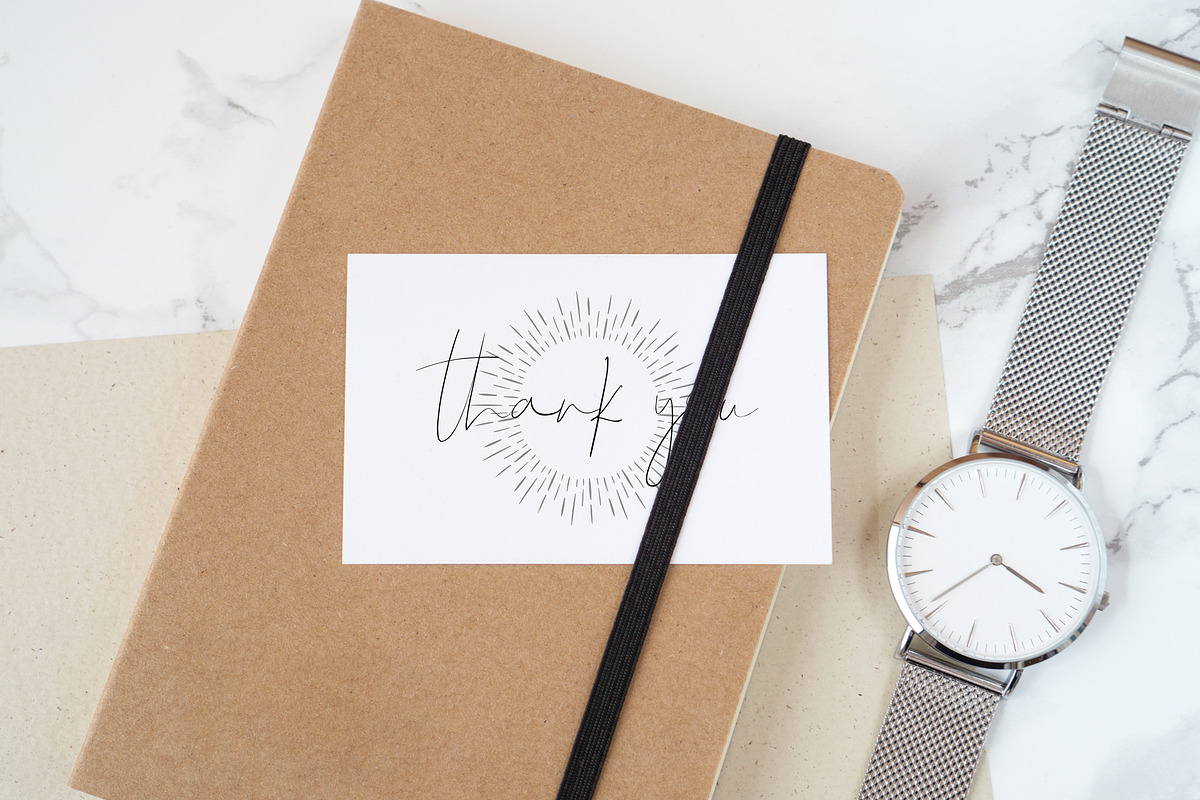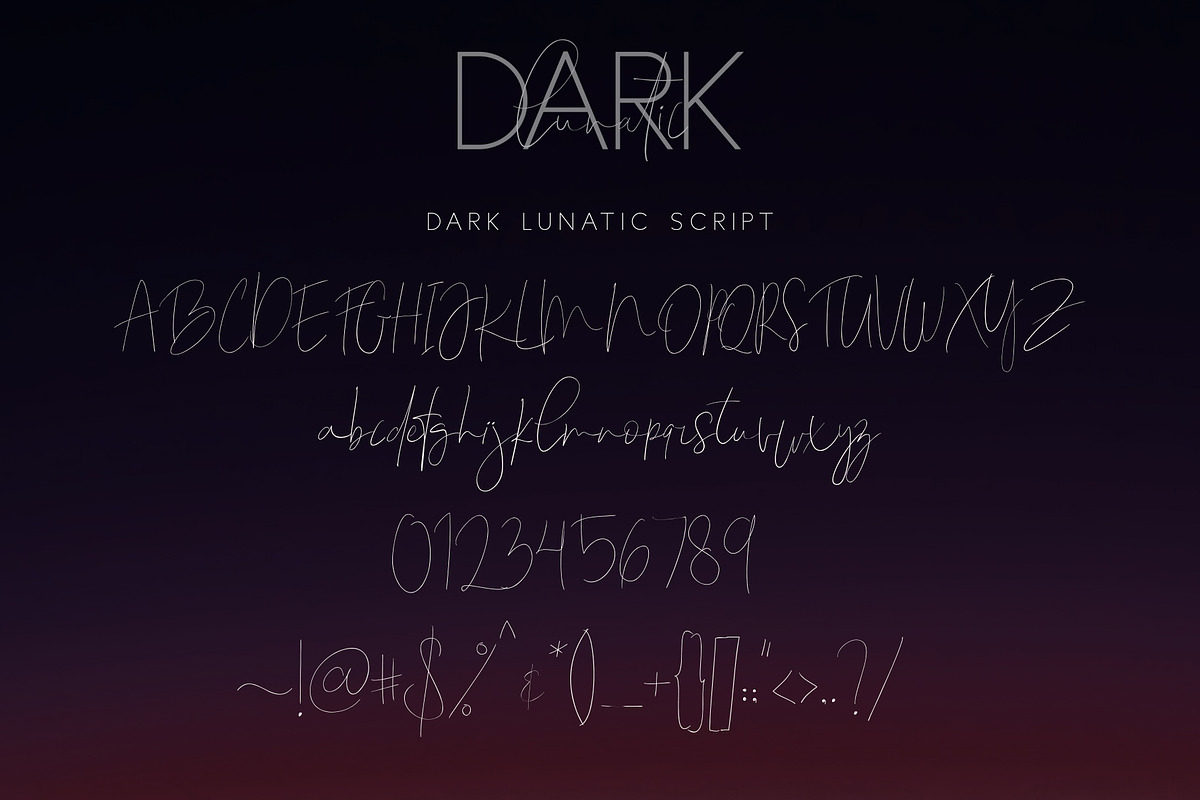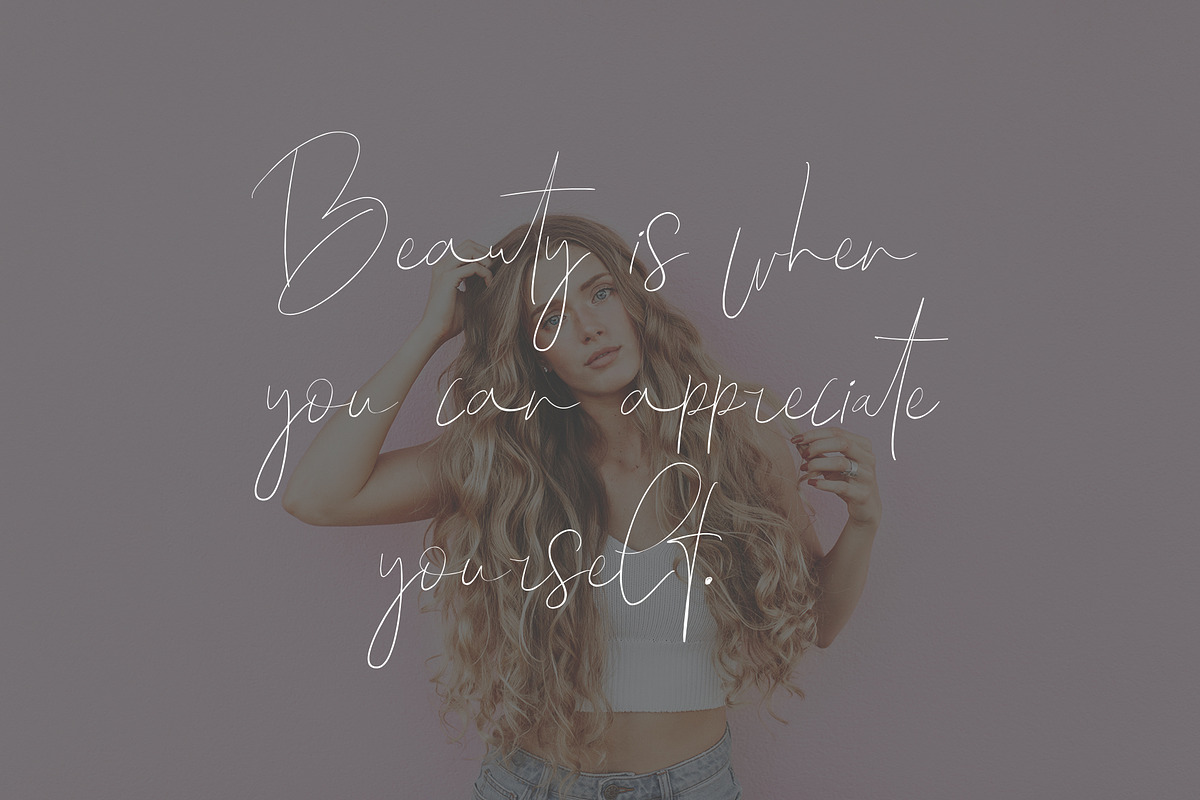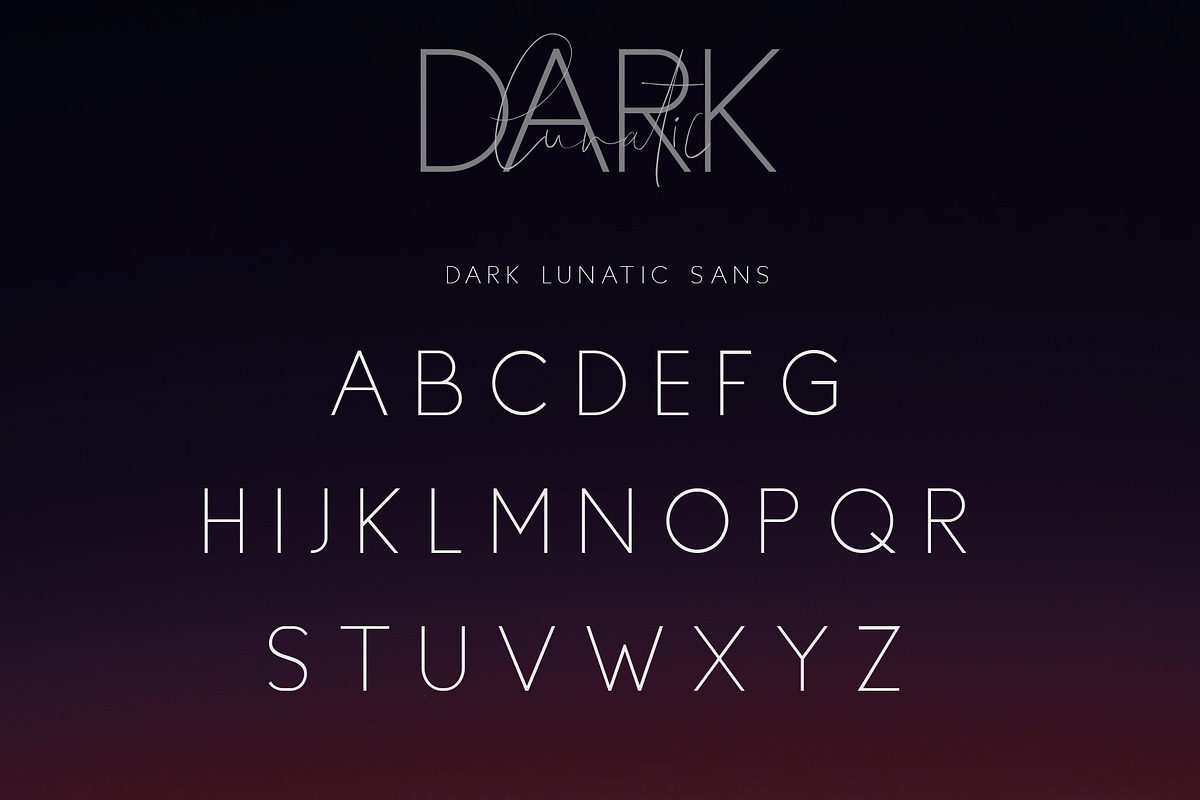
Dark Lunatic Duo
Introducing the Dark Lunatic Duo, a classy, contemporary pair of script and serif fonts. Dark Lunatic offers beautiful typographic harmony for a diversity of design projects, including logos & branding, wedding designs, social media posts, advertisements & product designs.